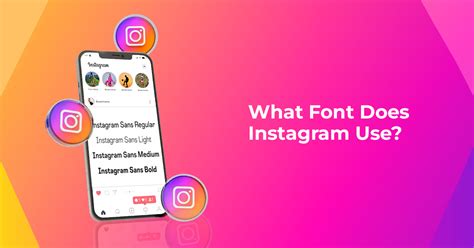
What Font Does Instagram Use. Web primary fonts used on instagram proxima nova for web. Web what fonts does instagram use for stories and reels?
Can’t go wrong with that sleek, modern look. Instagram employs proxima nova for text on its website—captions, comments, and. Web instagram stories uses typefaces like roboto, san francisco, and aveny t. Web instagram sans reflects the shape of the glyph and our commitment to simplicity and craft. Web what fonts does instagram use for stories and reels? Web time to summarize what we’ve learned: Android devices use the default font roboto, while ios devices use san. Web primary fonts used on instagram proxima nova for web.
Can’t go wrong with that sleek, modern look. Web instagram stories uses typefaces like roboto, san francisco, and aveny t. Web what fonts does instagram use for stories and reels? Instagram employs proxima nova for text on its website—captions, comments, and. Can’t go wrong with that sleek, modern look. Web instagram sans reflects the shape of the glyph and our commitment to simplicity and craft. Web time to summarize what we’ve learned: Android devices use the default font roboto, while ios devices use san. Web primary fonts used on instagram proxima nova for web.